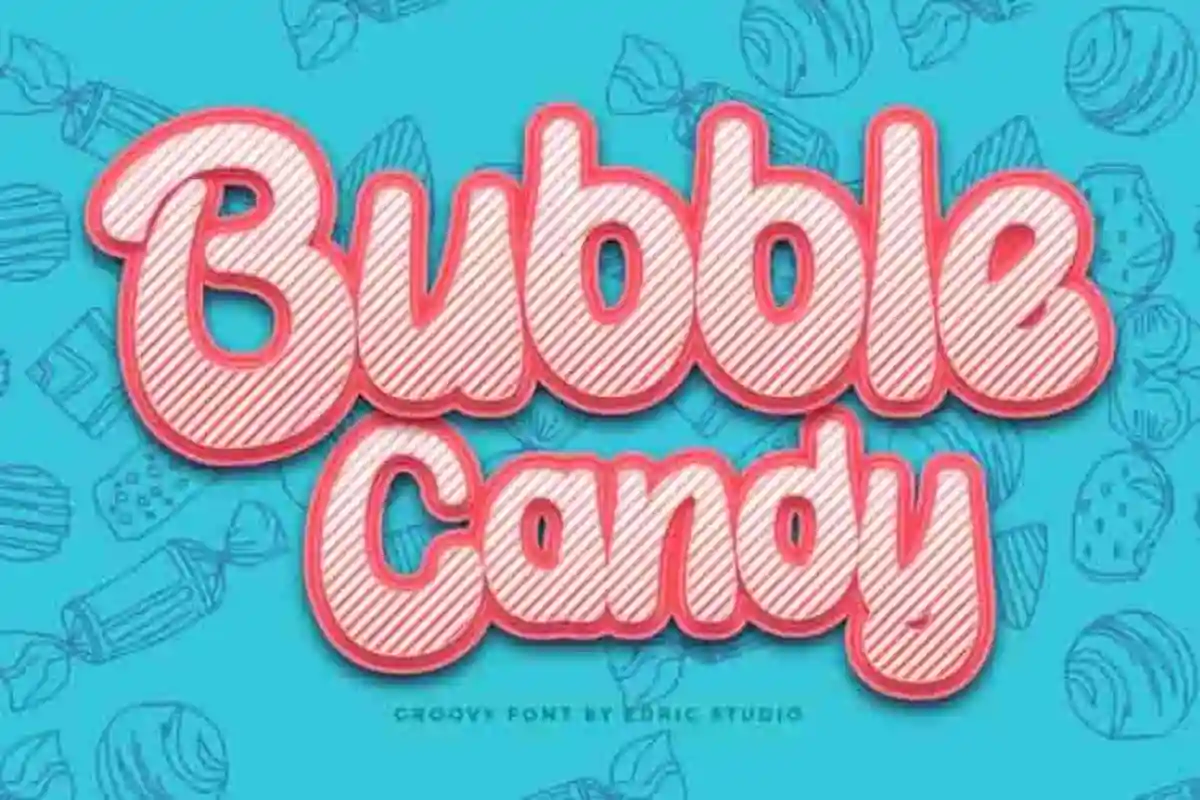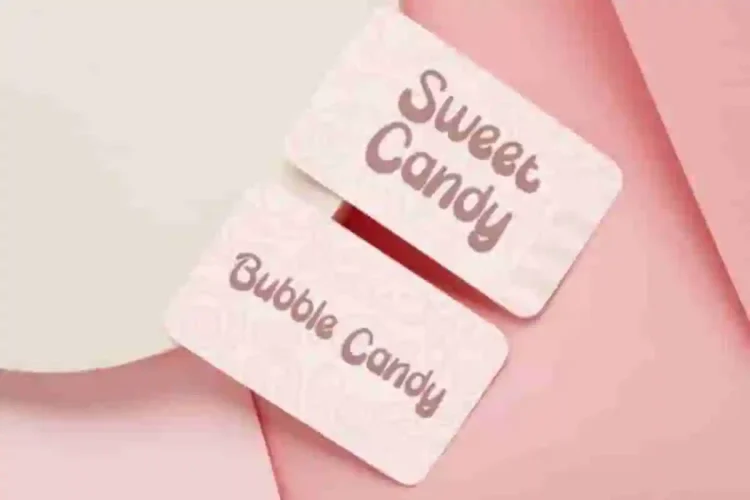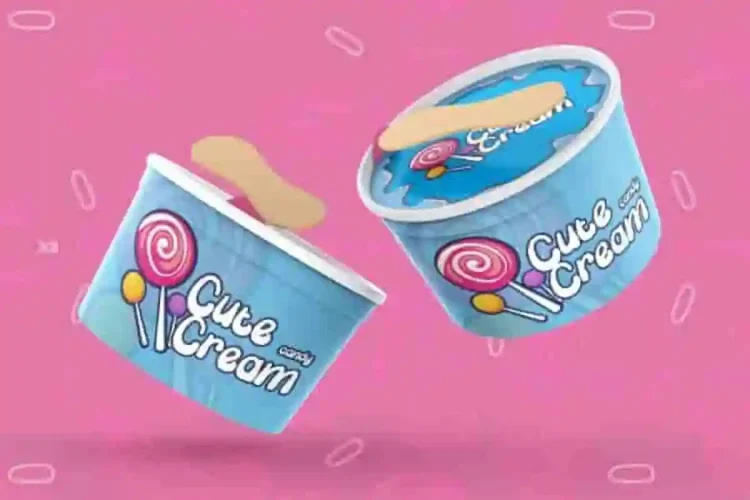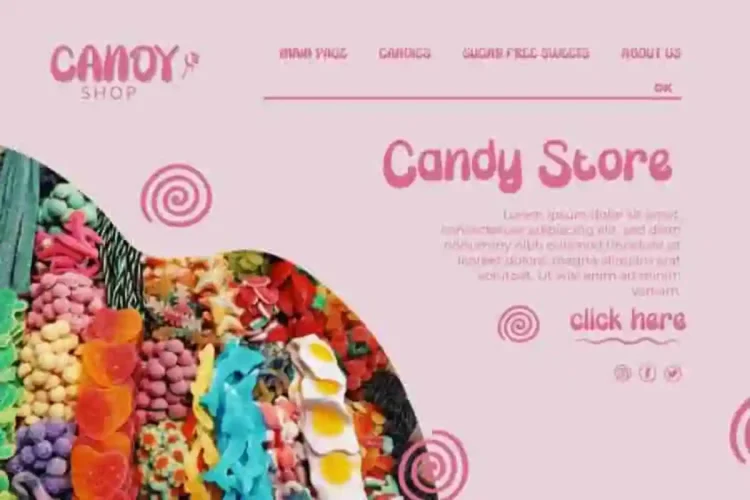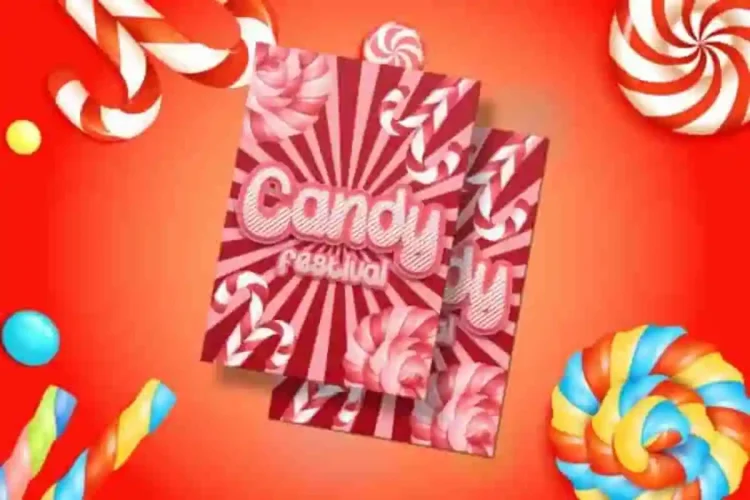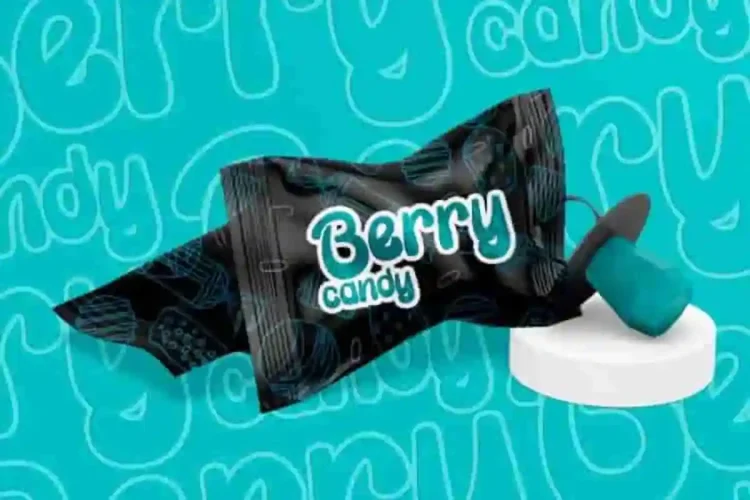
Bubble Candy Display Font
Bubble Candy Display Font is a groovy display font with comic style. This is a bold and cute look with a bubble brush effect. Will be perfect for branding, logo, products packaging, signage, stationery, title etc. Perfect for projects that need energy and joy, Bubble Candy Font makes your work stand out instantly.